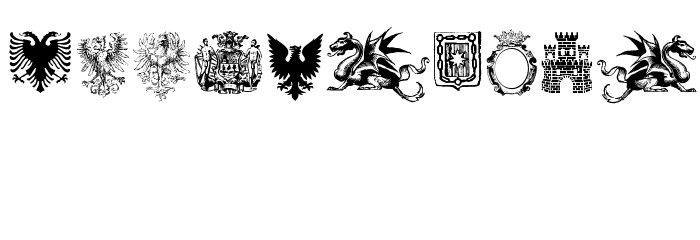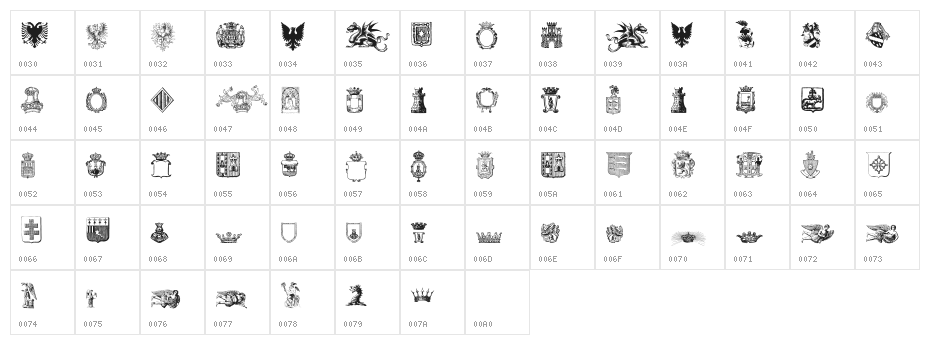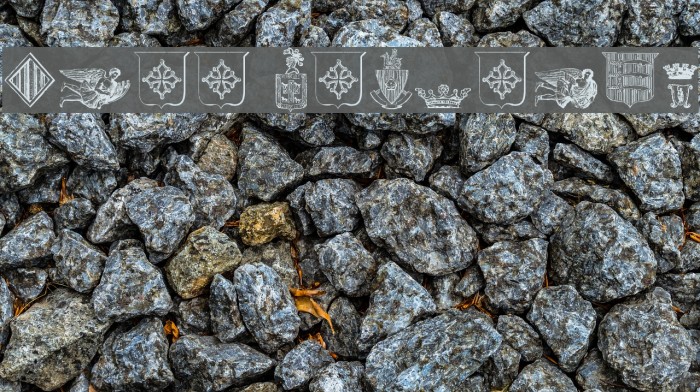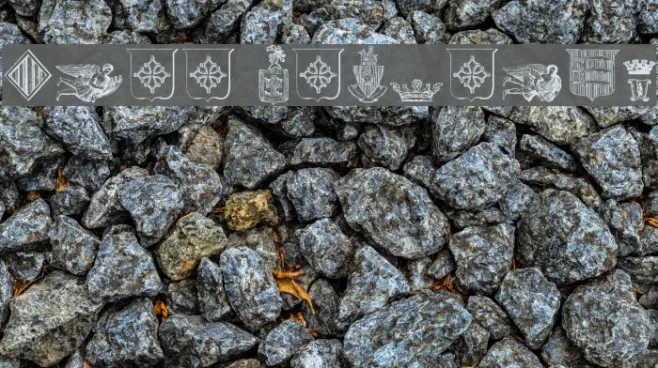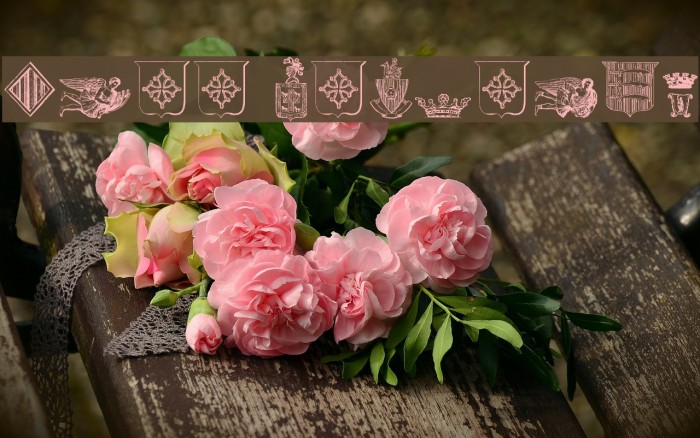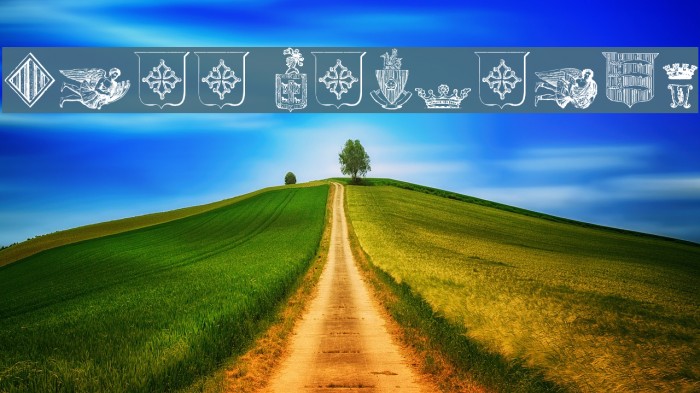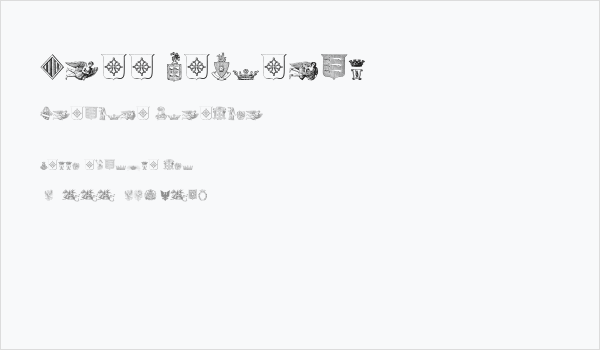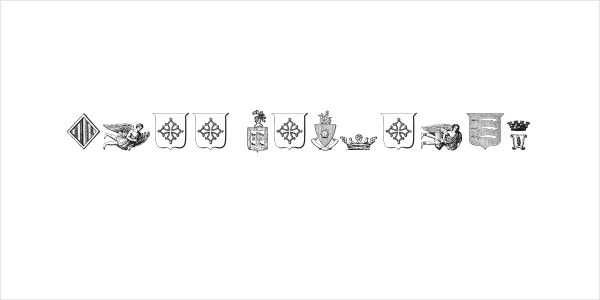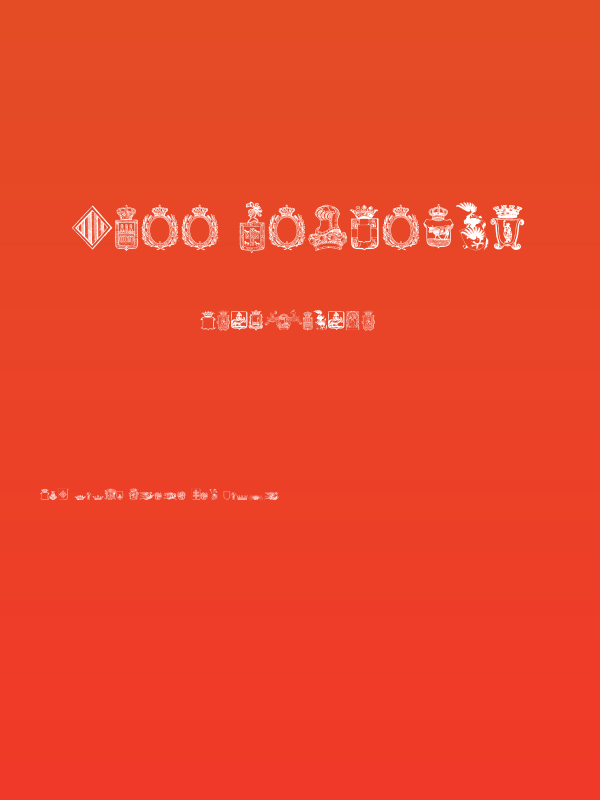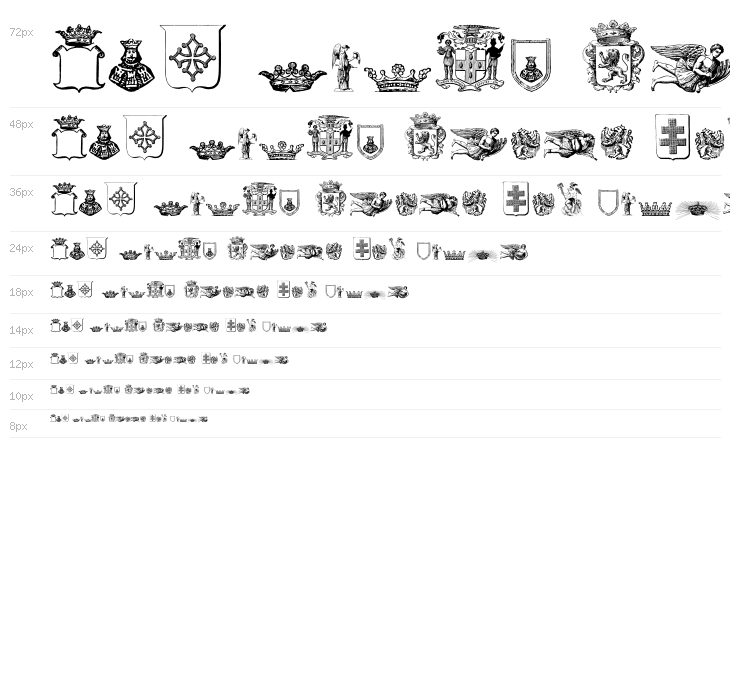
Free Medieval Font
Free Medieval Description
A decorative collection of medieval-style heraldic emblems, shields, crests, crowns, and mythical creatures rendered in detailed black and white line art, evoking historical and royal themes.
| Overall Style | Decorative, Vintage, Medieval |
| Use Case | Logos, Decorative elements, Themed graphics |
| Proposed Projects | Historical posters, fantasy book covers, themed invitations, game assets, educational materials, decorative branding. |